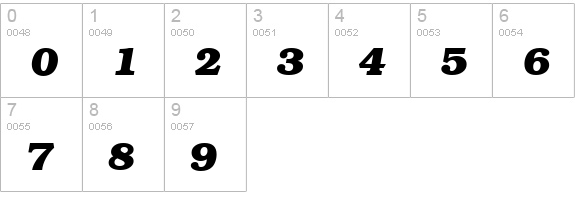
Book-Bold-Italic Font Details
Book-Bold-Italic is a comfortable, highly readable, italic variant in the Book typeface family \xE2\x80\x94 well suited to long-form body text, articles, and editorial content.
Book-Bold-Italic font is a versatile and stylish typeface that exudes sophistication and elegance. Its bold and italic design adds a touch of flair to any text, making it perfect for headings, titles, and emphasis. This font is ideal for projects that require a strong and impactful visual presence. The best part? Book-Bold-Italic font is available for free download at FontsMarket.com. Now you can enjoy this beautiful typeface without breaking the bank. Whether you're working on a professional design project or just want to add a touch of class to your personal creations, Book-Bold-Italic font is sure to impress. Download it today and elevate your typography game to the next level.